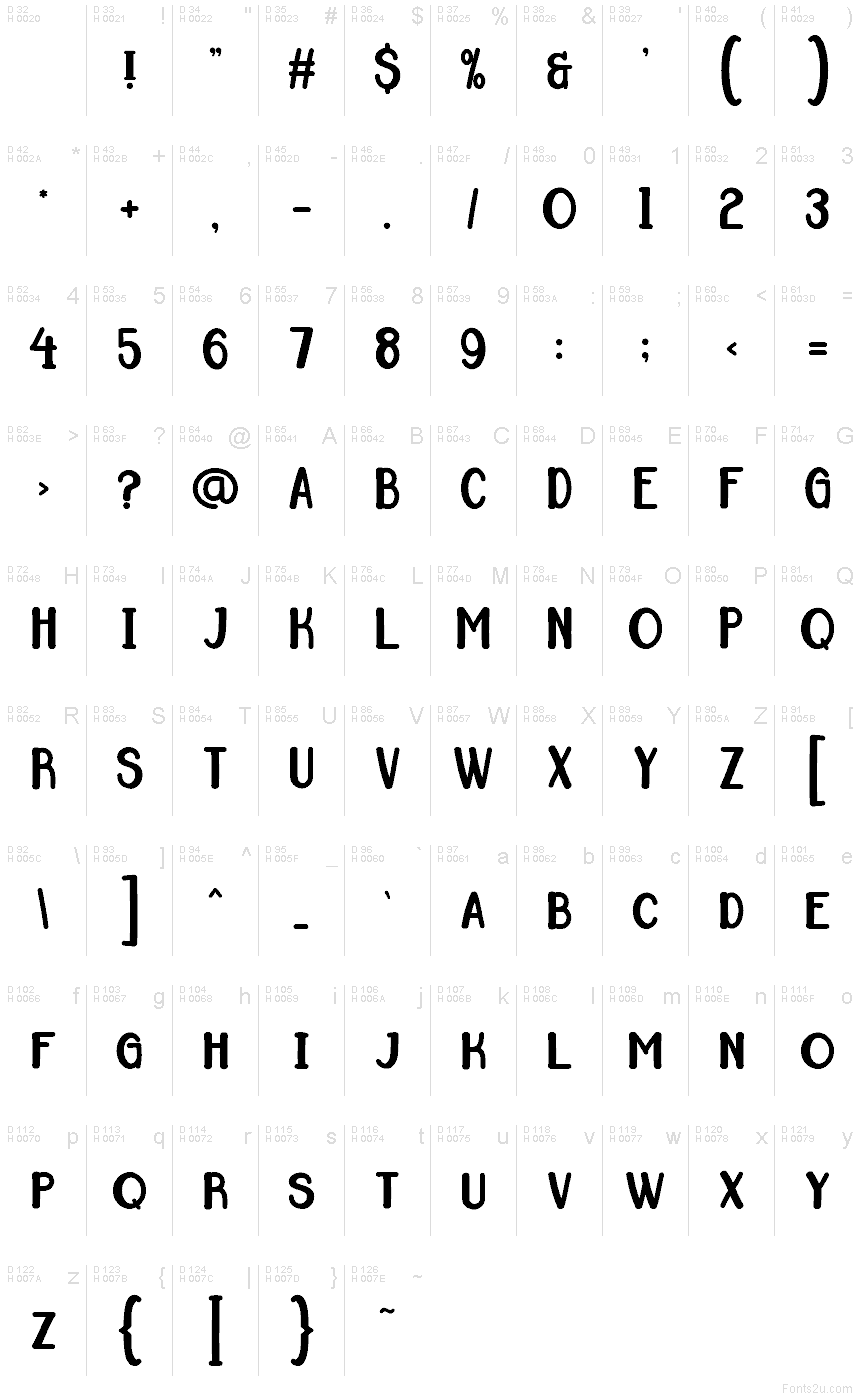
Vatena font by Gilang Ternadho of Maikohatta is a free Valentine display font that solves a classic dilemma: you want big, huggable warmth without losing clean, readable shapes. Its tall, rounded letters feel hand-cut and inky, with a gentle wobble that adds charm while the steady strokes keep headlines crisp. The rhythm is buoyant, not cutesy-sweet enough for romance, sturdy enough for real-world layouts.
Using Vatena, you can nail greeting cards, gift tags, chocolate or candle packaging, event posters, sticker sheets, and social graphics. This free font shines when set large; tighten tracking a touch for extra punch. For body copy or captions, pair Vatena with a neat geometric sans to keep the message clear and the vibe cozy.